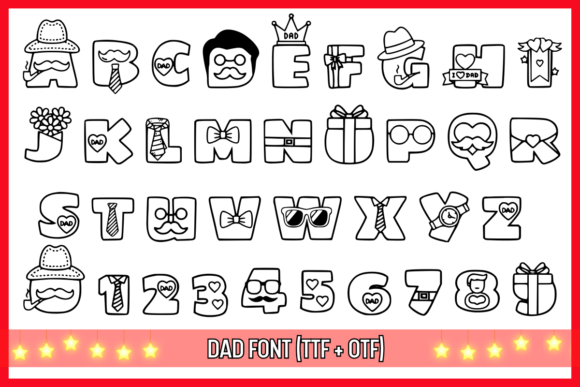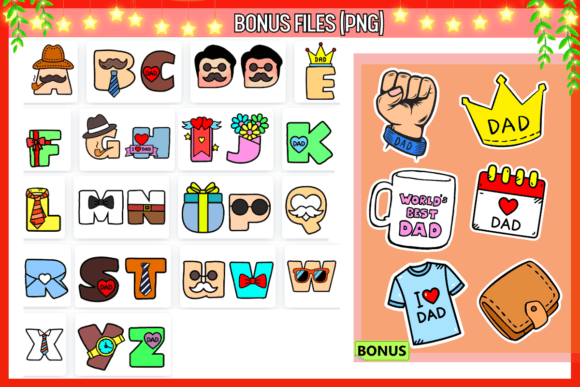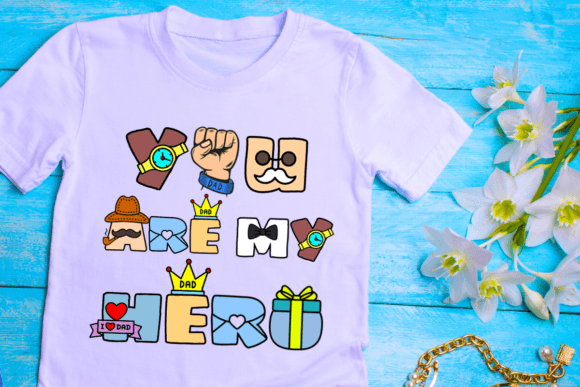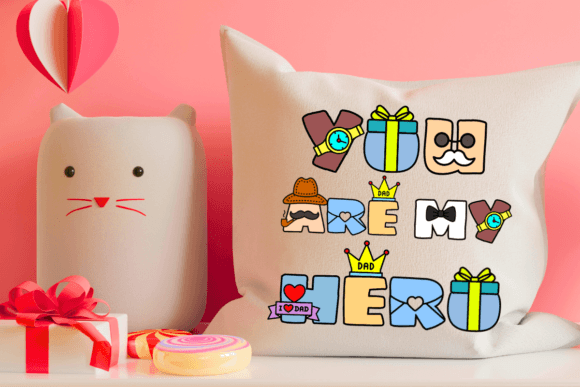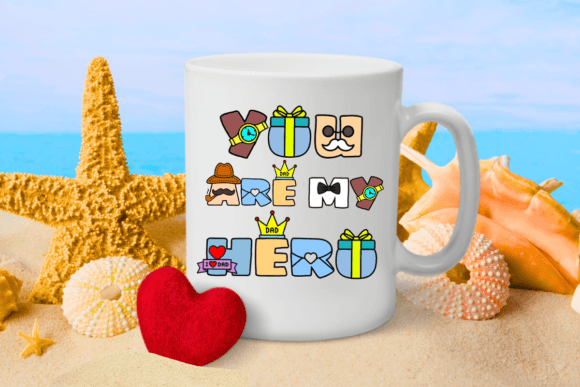
The Ultimate Guide to Dad Font: A Fun and Decorative Typeface for Creative Projects
Are you tired of using the same old boring fonts in your creative projects? Look no further than the “Dad Font”, a fun and decorative typeface that is sure to bring a smile to your face. As the name suggests, this font is inspired by dads, with each letter dressed in outfits and accessories that dads might wear, such as ties, hats, and glasses.
What is Dad Font?
“Dad” is a unique and playful font that features colorful PNG files for each letter of the alphabet. The font is designed to look like a dad, with each letter wearing a different outfit and accessories, making it perfect for a variety of creative projects, from greeting cards and invitations to posters and social media graphics.
Key Features of Dad Font
- Fun and decorative design: Each letter is designed to look like a dad, complete with outfits and accessories.
- Colorful PNG files: The font includes colorful PNG files for each letter, making it easy to use and customize.
- Perfect for creative projects: The font is perfect for a variety of creative projects, from greeting cards and invitations to posters and social media graphics.
Tips and Tricks for Using Dad Font
Here are some tips and tricks for using the Dad Font:
- Use it for special occasions: Use the font for special occasions, such as Father’s Day or birthdays.
- Experiment with different colors: Experiment with different colors and design elements to make your design stand out.
- Use it with other fonts: Use the font with other fonts to create a unique and eye-catching design.
- Make it your own: Add your own personal touch to the font by creating custom letters or design elements.
The Dad Font is a fun and decorative typeface that is perfect for a variety of creative projects. With its colorful PNG files and easy-to-use design, it’s perfect for designers and crafters of all levels. Whether you’re creating a greeting card, invitation, or social media graphic, the Dad Font is sure to bring a smile to your face and make your design stand out.